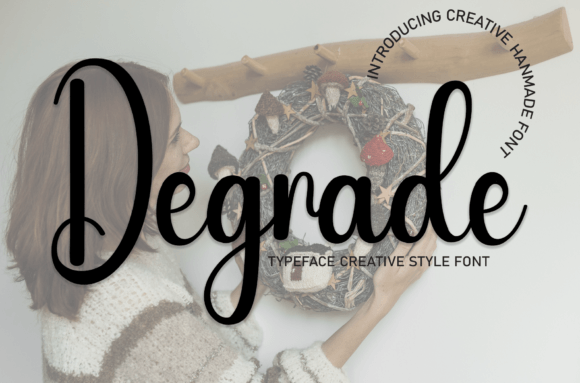
Dive into the enchanting world of Degrade Font - a script font family that oozes sweetness and friendliness! With its playful and captivating handwritten style, Degrade is the perfect choice for adding a touch of whimsy and personality to your creative projects.
Born from the creative mind of William Jhody, Degrade is not just a font; it's an artistic expression that speaks to the heart. Its smooth, flowing strokes and charming imperfections create a sense of authenticity and warmth, making it an ideal choice for heartfelt messages, personal branding, and design projects that seek to connect with audiences on an emotional level.
Step into a world of endless possibilities with Degrade Font. Whether you're a seasoned designer or just starting, discover how this font can transform your creative visions into stunning realities. It's the perfect companion for crafting unique wedding invitations, heartfelt greeting cards, captivating social media posts, and any project that calls for a touch of handwritten charm.
With Degrade Font, you'll find a font that's as versatile as it is beautiful. Its ability to effortlessly blend with diverse design styles makes it a true creative chameleon. Explore the endless possibilities, from whimsical logos that exude a playful vibe to elegant branding materials that speak of sophistication and charm. The choice is yours, and Degrade Font is ready to accompany you on your creative journey. Embrace the magic of Degrade Font and embark on a creative adventure that will leave a lasting impression on your audience.